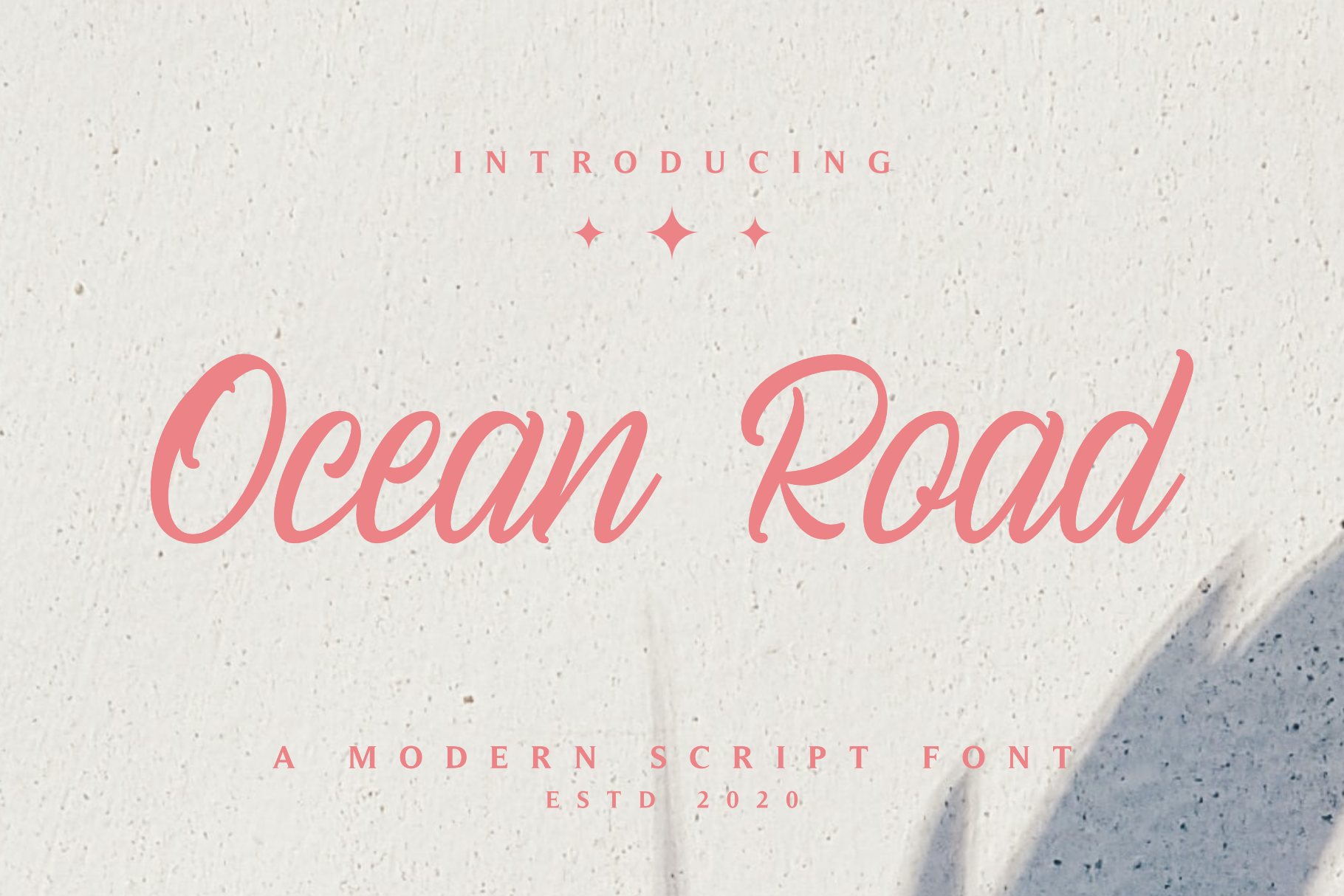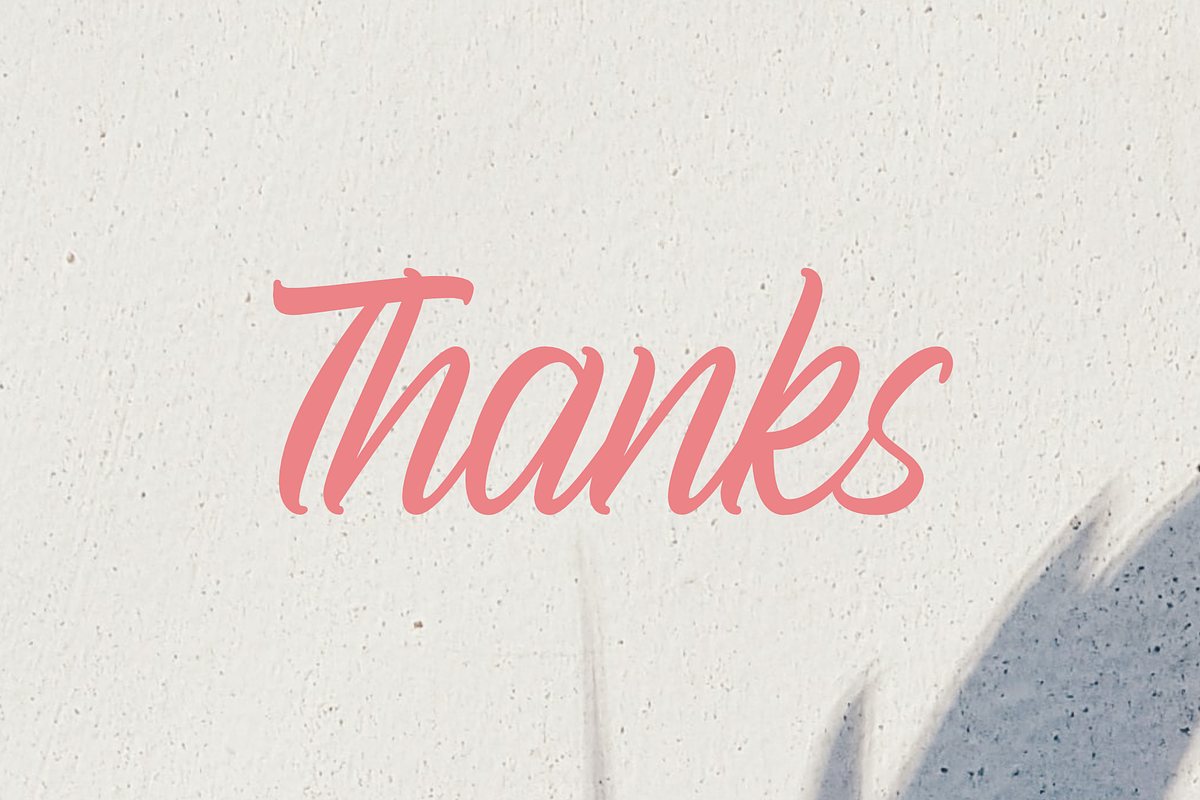
Ocean Road - A Modern Script Font
Introducing our newest font called Ocean Road. this is modern calligraphy font that perfect logo, poster, and many others. let's make world more special with Ocean Road.